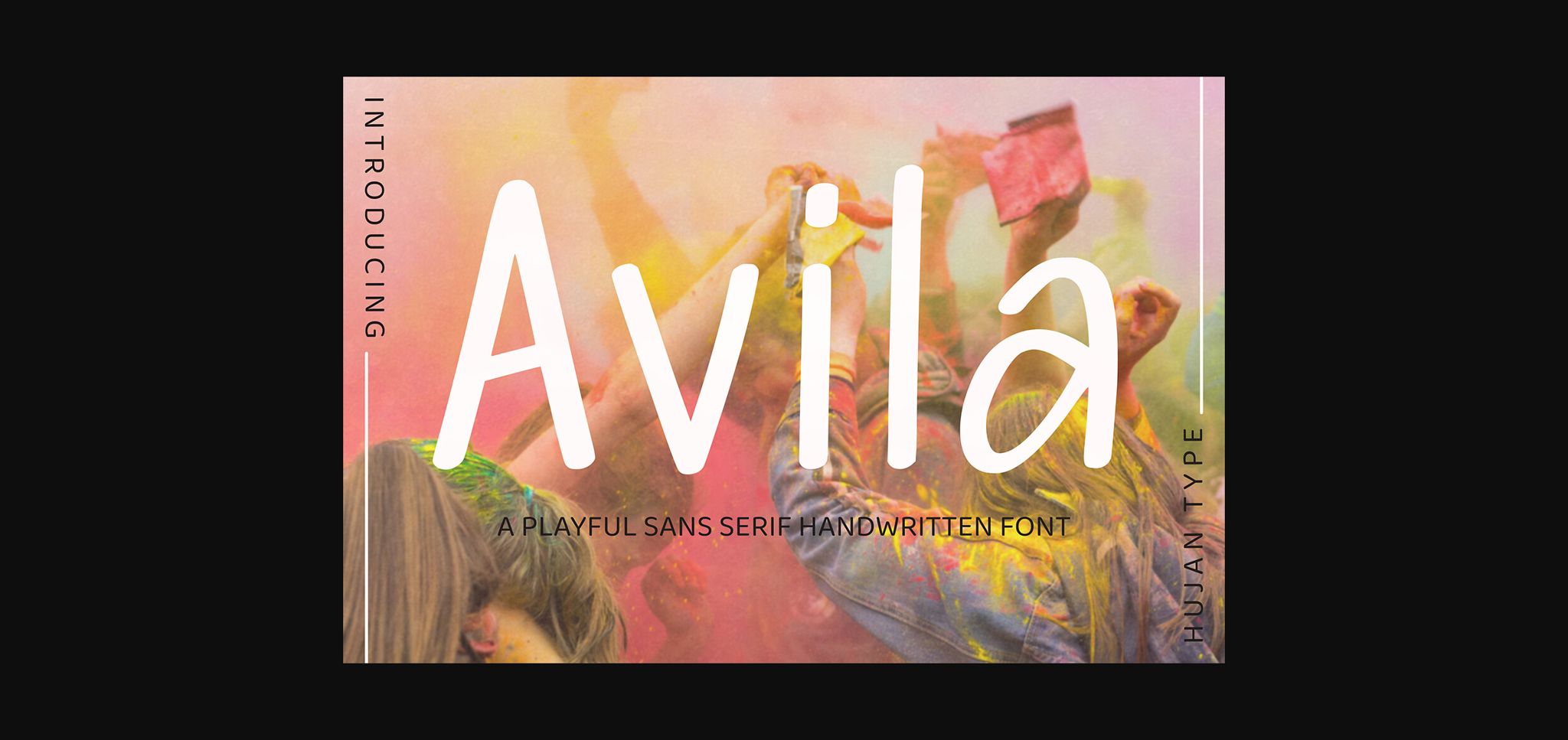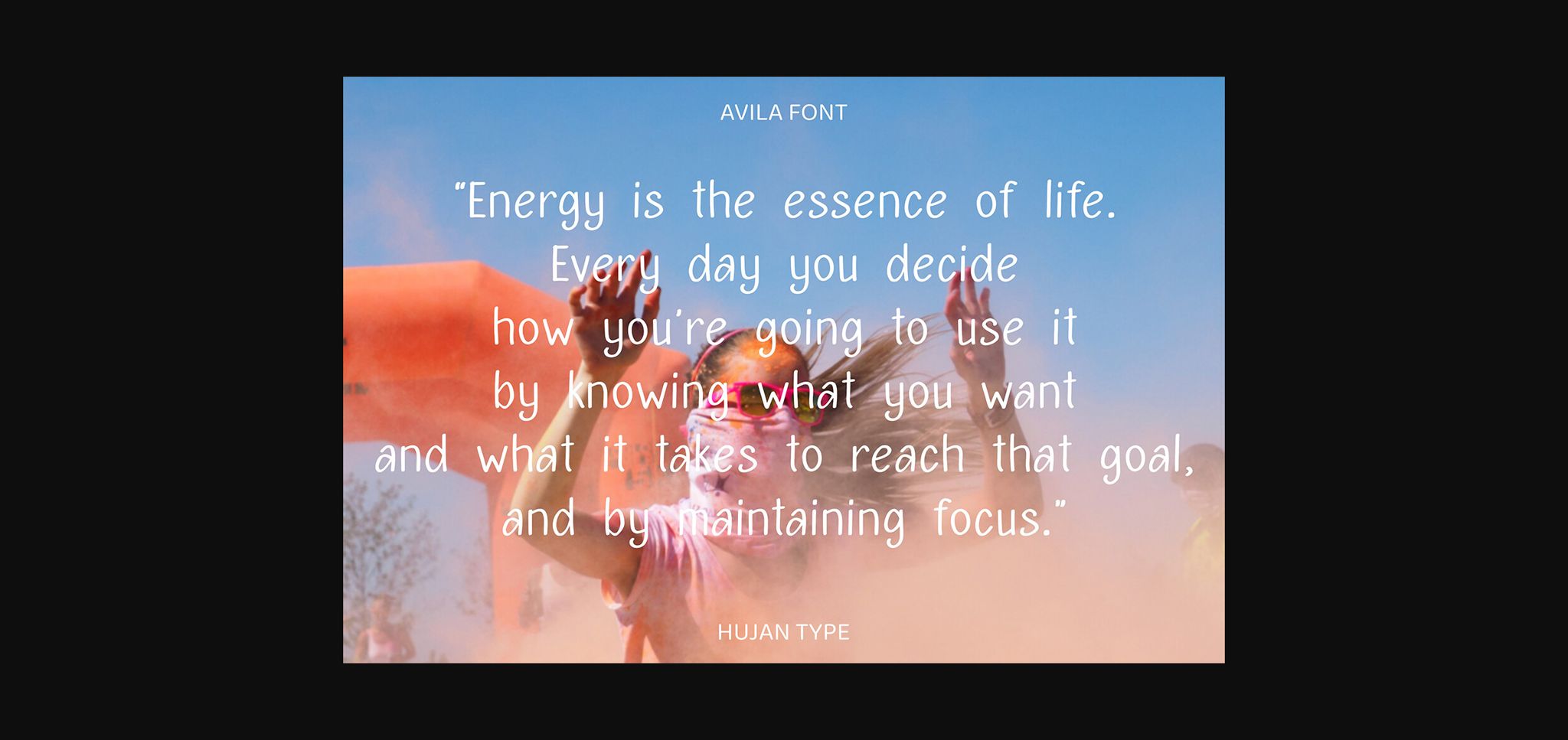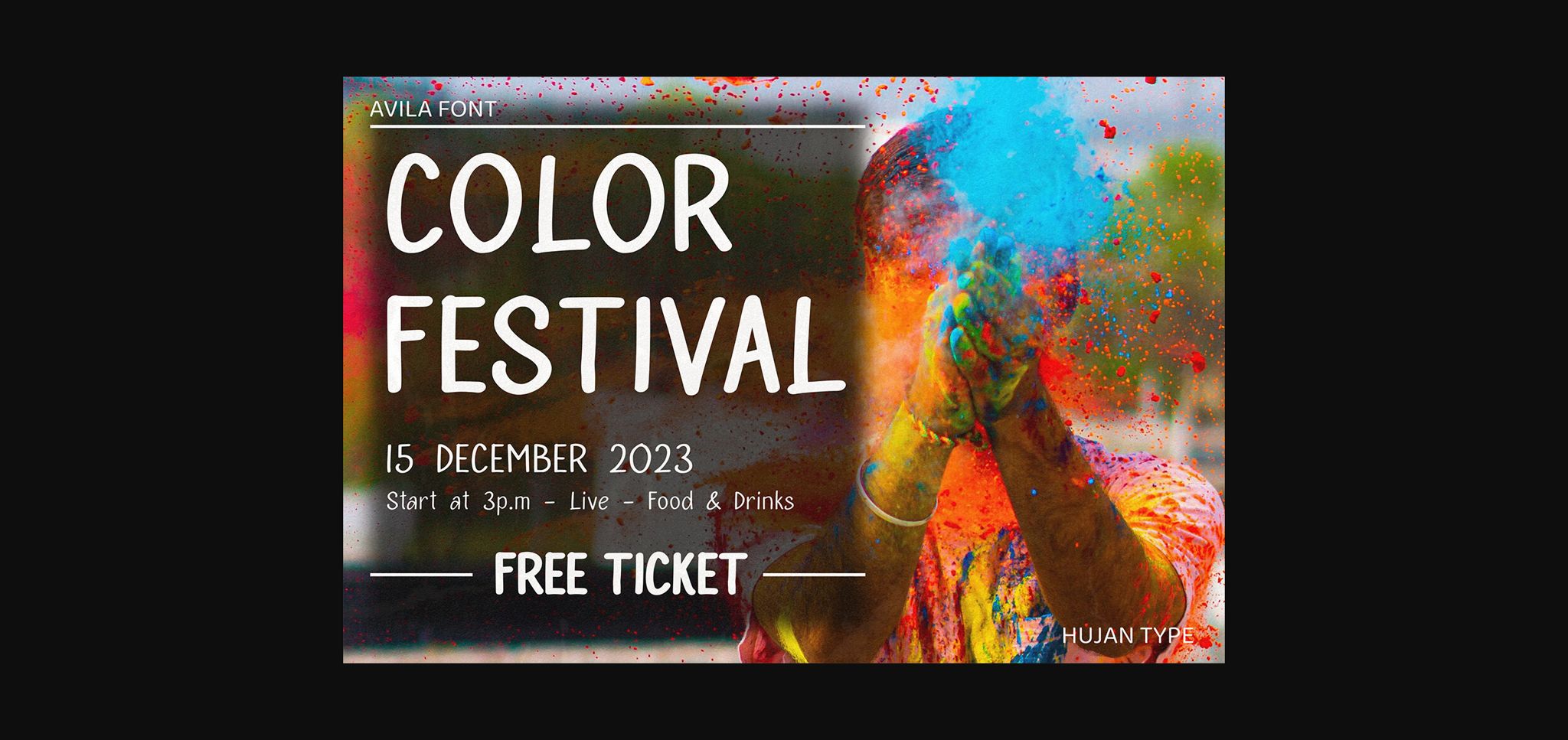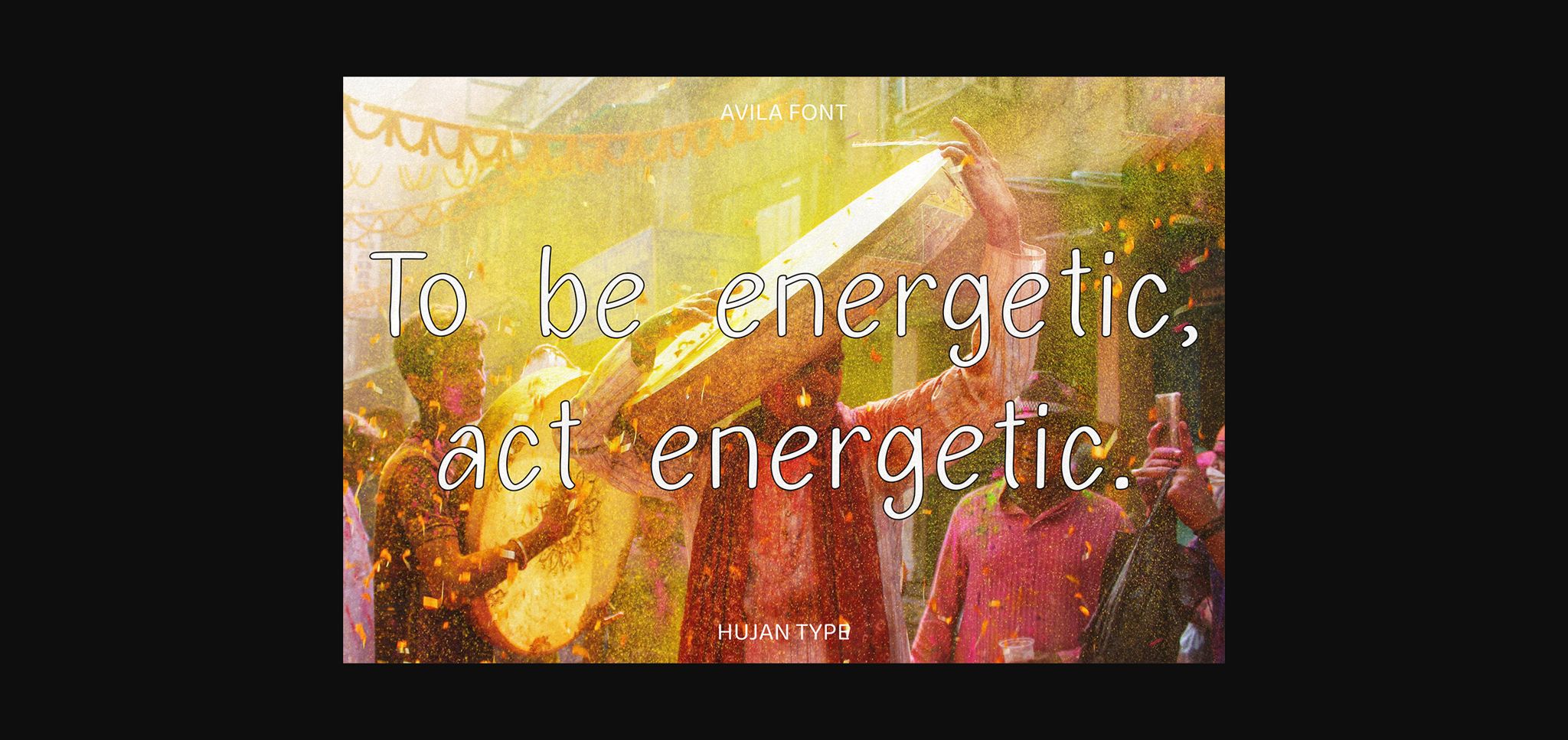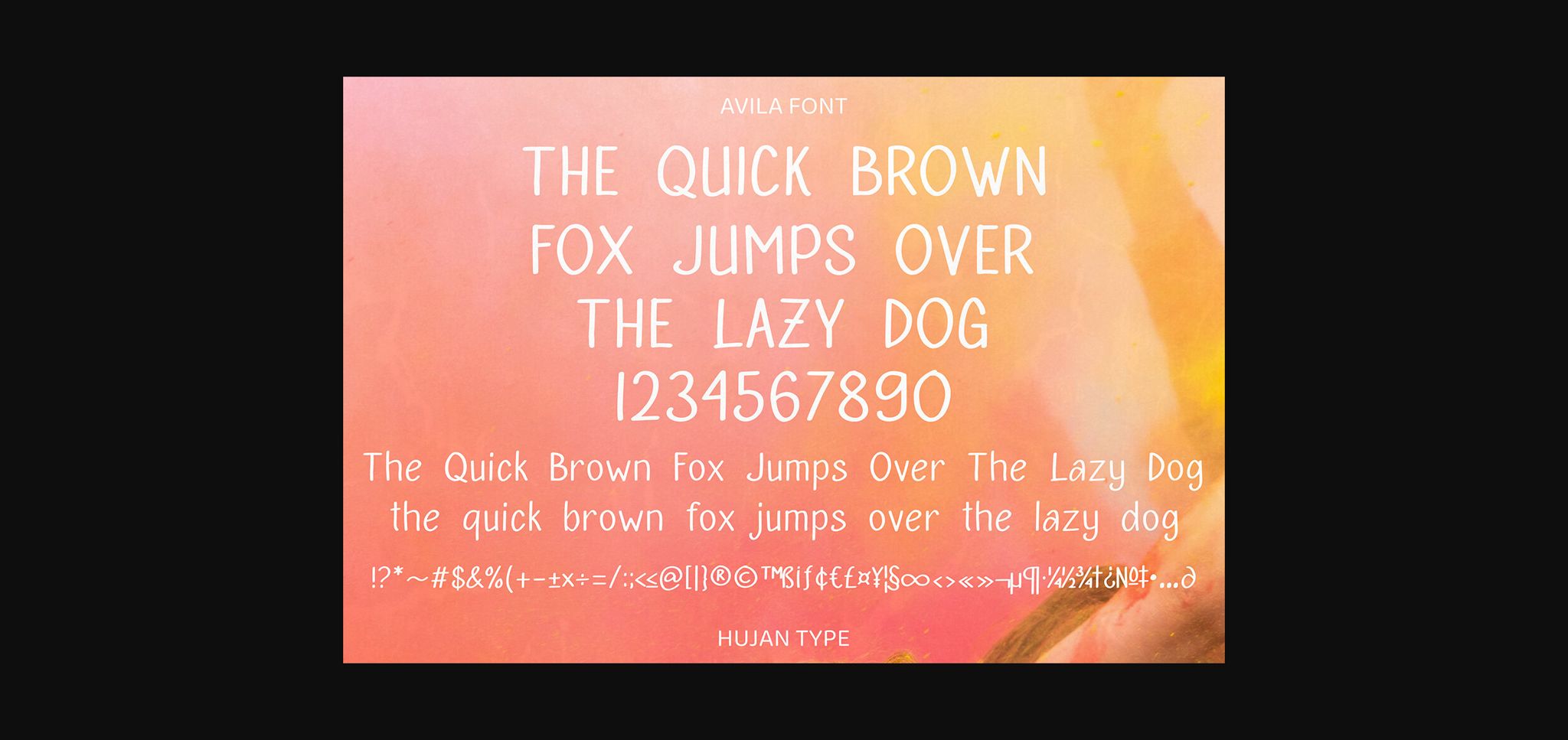
Avila Font
About Avila Font
Avila a sans serif handwritten font are perfect for poster, social media post, advertisements, product packaging, product designs, labels, photography, watermarks, invitations, stationery, and any project that requires handwritten taste.